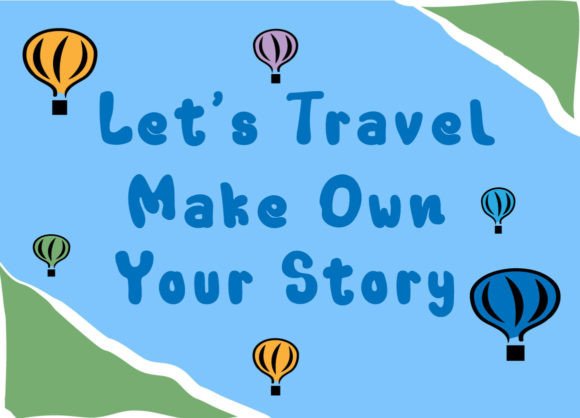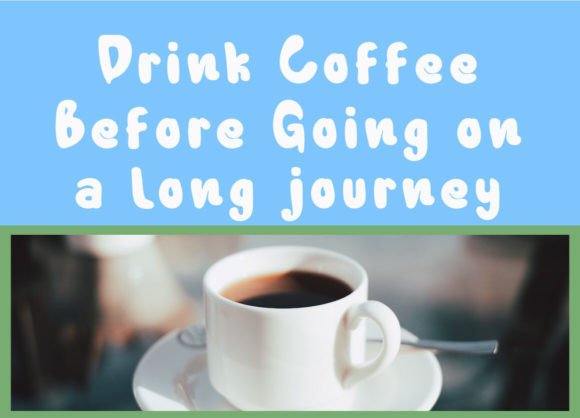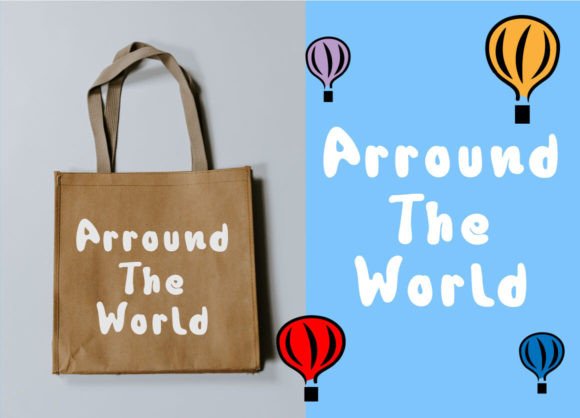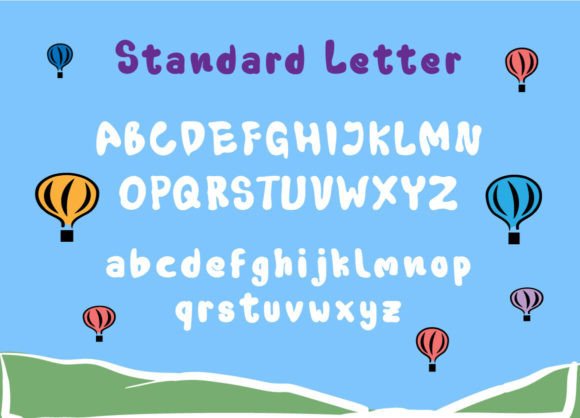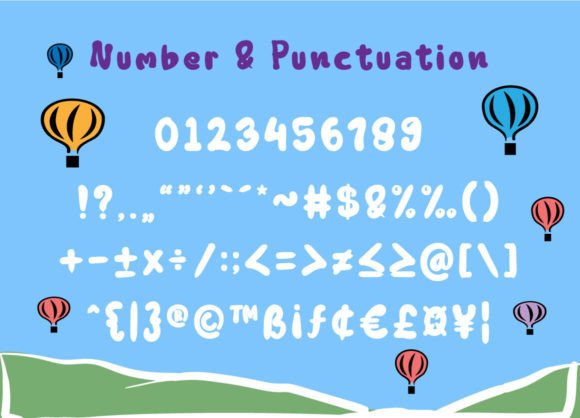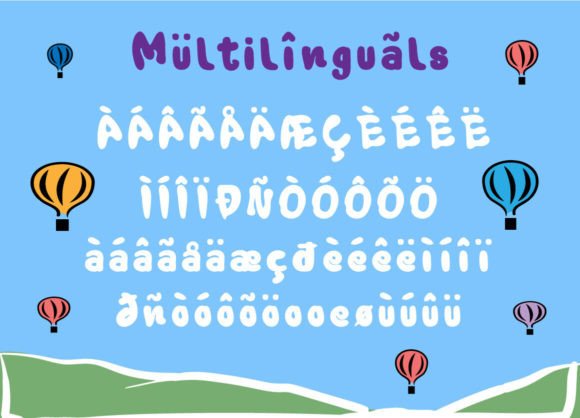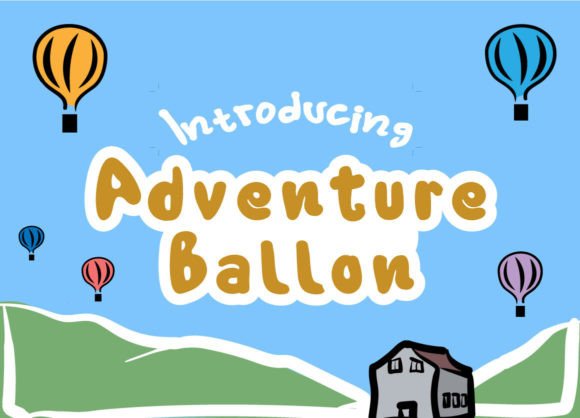
Introducing Adventure Ballon: The Ultimate Display Font for Creative Projects
Are you tired of using the same old fonts for your creative projects? Look no further! We’re excited to introduce Adventure Ballon, a stunning display font that’s perfect for adding a touch of personality to your designs. In this article, we’ll take a closer look at the features of Adventure Ballon and explore the many ways you can use it to elevate your work.
What is Adventure Ballon?
Adventure Ballon is a beautifully crafted display font that’s designed to make a statement. With its unique and playful style, this font is sure to capture the attention of your audience and leave a lasting impression. Whether you’re working on a social media post, branding project, or art piece, Adventure Ballon is the perfect choice.
Key Features of Adventure Ballon
So, what makes Adventure Ballon so special? Here are just a few of its key features:
- Uppercase and Lowercase Letters: Adventure Ballon contains both uppercase and lowercase letters, making it easy to use for a variety of projects.
- Numbers and Punctuation: In addition to letters, this font also includes numbers, punctuation, and symbols, giving you everything you need to create professional-looking designs.
- Handwriting Style: With its handwriting-inspired style, Adventure Ballon adds a touch of personality to any project.
Uses for Adventure Ballon
So, how can you use Adventure Ballon in your creative projects? The possibilities are endless! Here are a few ideas to get you started:
- Social Media Posts: Add a pop of personality to your social media posts with Adventure Ballon. Use it to create eye-catching headlines or quotes that will grab the attention of your followers.
- Branding Projects: Create a memorable brand identity with Adventure Ballon. Use it to design logos, business cards, or packaging that stands out from the crowd.
- Logos and Badges: Adventure Ballon is perfect for creating custom logos and badges. Use it to add a touch of whimsy to your designs.
- Cafe Menus and Posters: Add a touch of elegance to your cafe menus and posters with Adventure Ballon. This font is sure to make your designs stand out.
- Blog Headers and Banners: Create stunning blog headers and banners with Adventure Ballon. This font is perfect for adding a touch of personality to your website.
- Art Projects and Printed Quotes: Adventure Ballon is a great choice for art projects and printed quotes. Use it to add a touch of inspiration to your designs.
- Logotype and Packaging: Create custom logotypes and packaging with Adventure Ballon. This font is sure to make your designs stand out.
- Headlines and Greeting Cards: Use Adventure Ballon to create stunning headlines and greeting cards. This font is perfect for adding a touch of personality to your designs.
- Wedding Invitations: Make your wedding invitations truly special with Adventure Ballon. This font is sure to add a touch of elegance to your designs.
Why Choose Adventure Ballon?
So, why should you choose Adventure Ballon for your creative projects? Here are just a few reasons:
- Unique Style: Adventure Ballon has a unique and playful style that’s sure to make your designs stand out.
- Easy to Use: This font is easy to use and comes with a range of features, including uppercase and lowercase letters, numbers, punctuation, and symbols.
- Versatile: Adventure Ballon is versatile and can be used for a wide range of projects, from social media posts to branding projects and art pieces.
| Author | Skemasite |
In conclusion, Adventure Ballon is a stunning display font that’s perfect for creative projects. With its unique and playful style, this font is sure to capture the attention of your audience and leave a lasting impression. Whether you’re a designer, crafter, or DIY enthusiast, Adventure Ballon is a great choice for adding a touch of personality to your designs. So why wait? Download Adventure Ballon today and start creating stunning designs that stand out from the crowd!